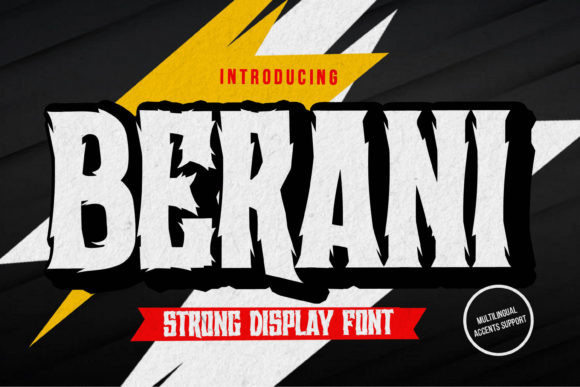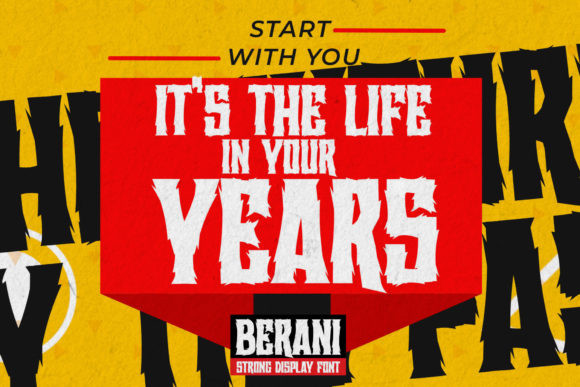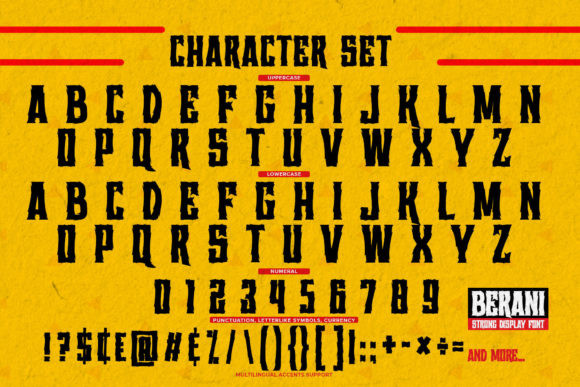
Berani Font
Berani Font is a cool, vintage styled and rough textured display font. Add this bold font to your favorite creative projects, and you will love the results.